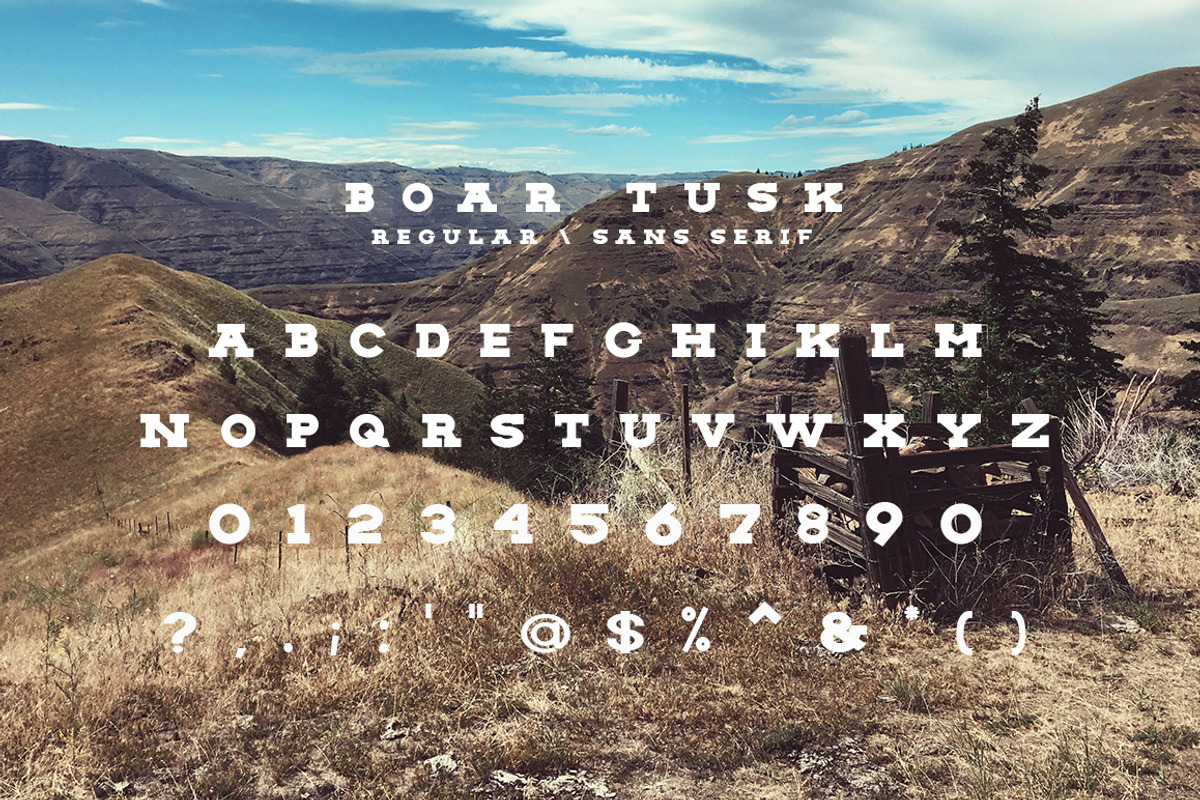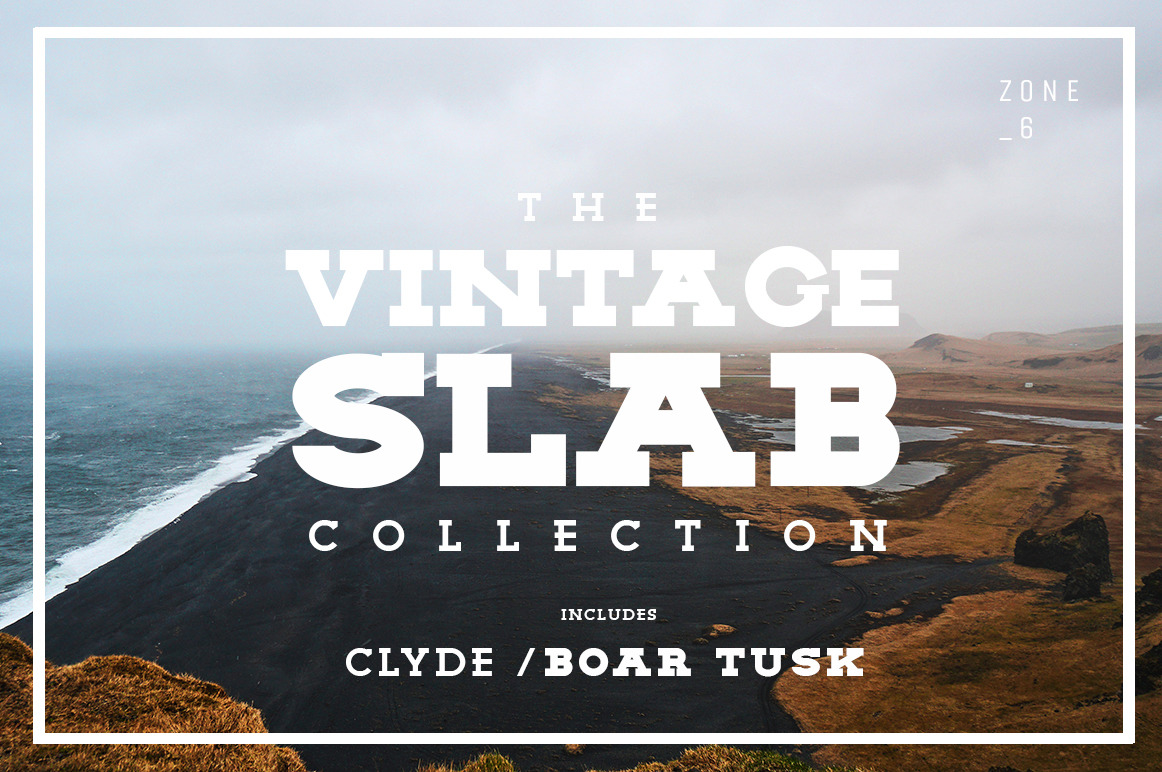
The Vintage Slab Font Collection
Within this font bundle you'll receive 2 font families. Boar Tusk is a bold & fearless slab serif collection, inspired by the wild west but even bigger. Clyde is a classic, bold and tenacious slab serif collection inspired by adventure.
Each font comes with its italic, rounded, and rough versions, so you’ll have plenty of fonts to create great projects with including logotypes, print, branding, and signage.
- 8 Incredible fonts included
- Numbers and punctuation included
- Optimized kerning for aesthetic and highly readable texts
If you’re looking for a collection of fonts that will work together to create appealing vintage style projects then The Vintage Slab Font Collection is for you.